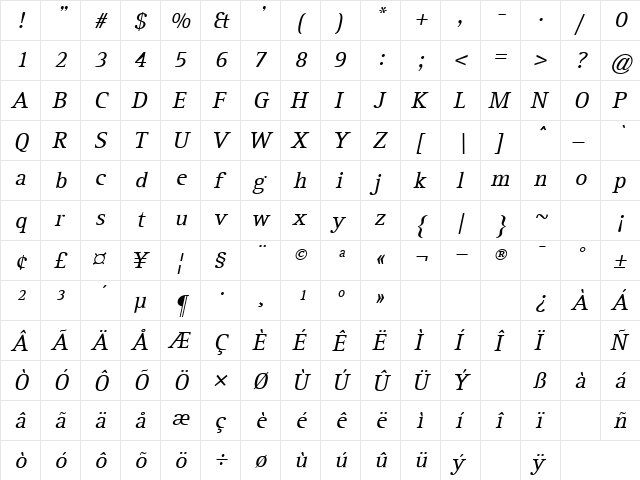
Sabot Oblique
Design Context for Sabot Typeface
Sabot offers clean, dependable letterforms without strong stylistic allegiance, making it a practical choice for designers who need flexibility. The dynamic lean of this cut emphasises speed and emphasis in any layout.
Pro Tip: Try Sabot for annotation and caption copy alongside an upright companion — the contrast in angle creates a dynamic but ordered typographic system.